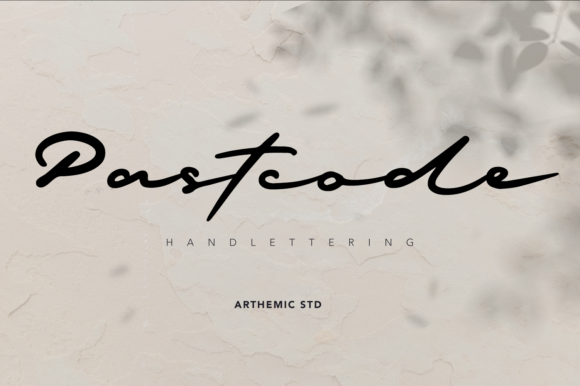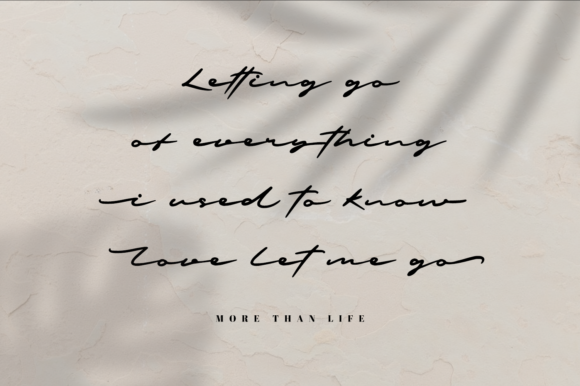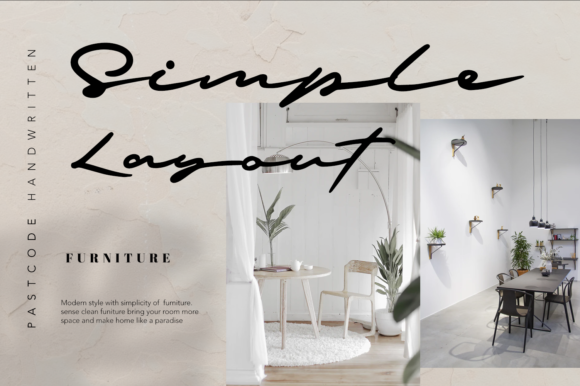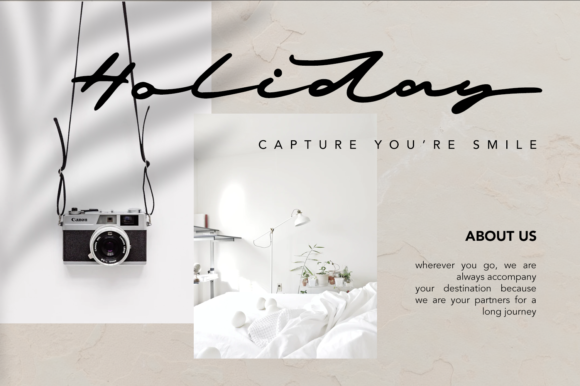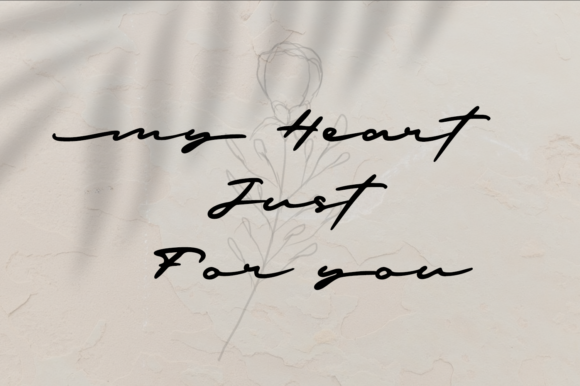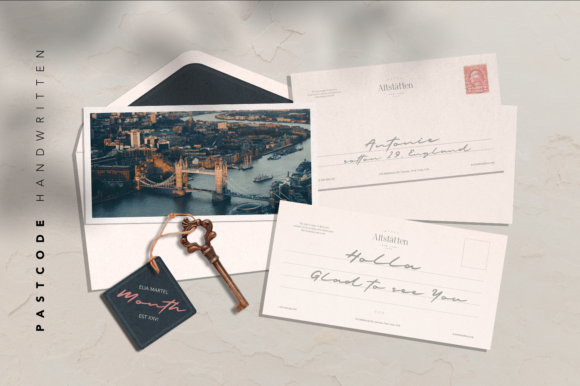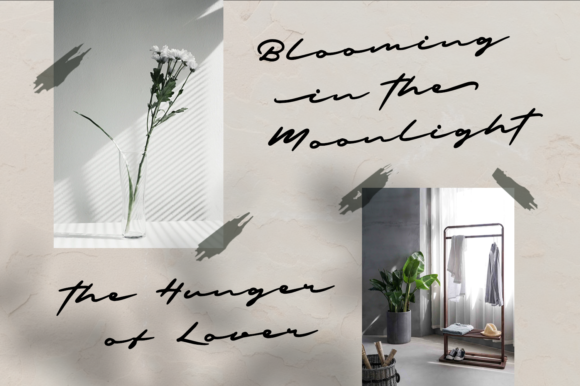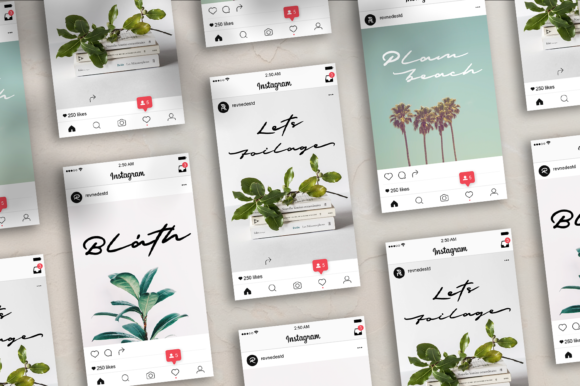
Pastcode Font
About Pastcode Font
Pastcode is elegant and pretty, making it a stunning script for invitations, logos, social media posts, advertisements, product designs and much more!